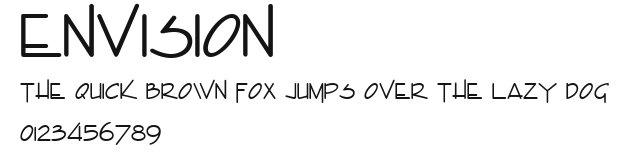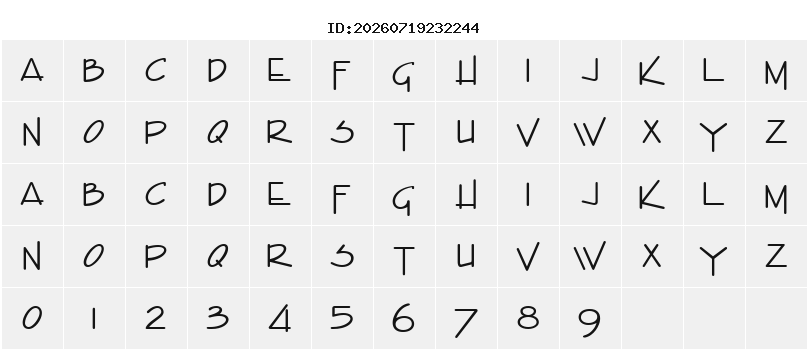
• Font Name: Envision
• Font ID: Envision Plain
• Full Font Name: Envision
• PostScript Name: EnvisionPlain
• Character Count: 260
About Envision.ttf
Envision.ttf is a modern, elegant sans-serif font designed for ultimate readability and visual harmony. Perfect for branding, headlines, web design, and print materials.